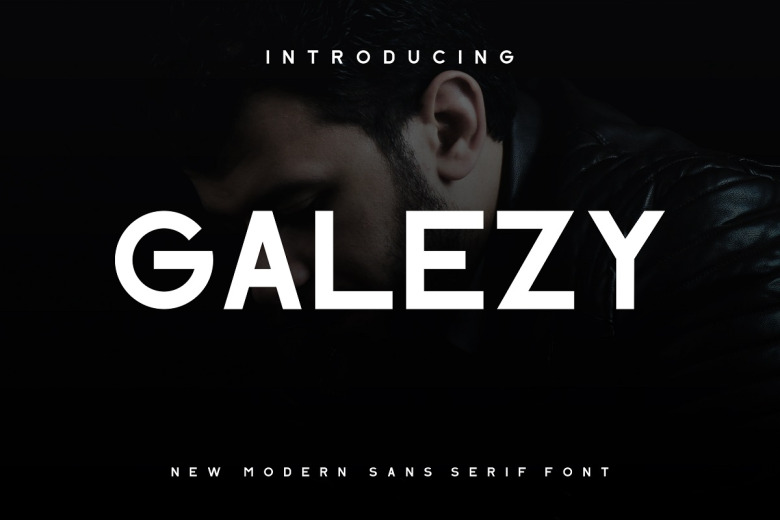
Galezy is a striking sans serif with tremendous personality. Well suited for ambitious branding initiatives like logo design, sportswear, competitive video gaming, and beyond. Though composed of straightforward forms, in skilled hands it sings – equal turns bold and delicate. As a PUA encoded typeface, all permutations of letters and stylized flourishes remain but a character selection away.
Galezy Sans Serif Font